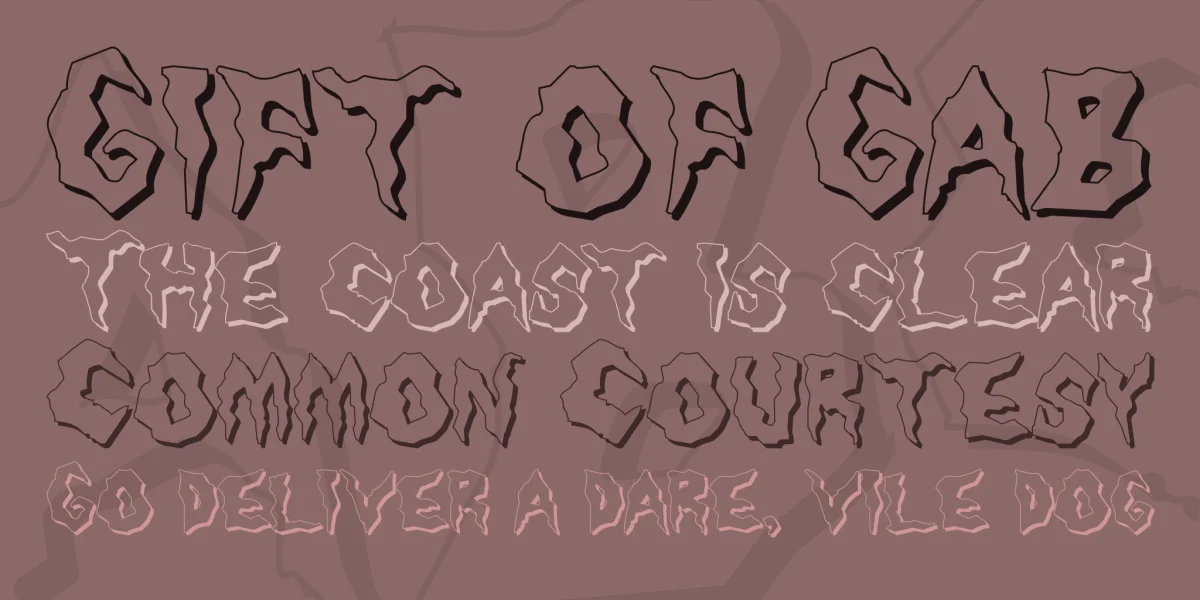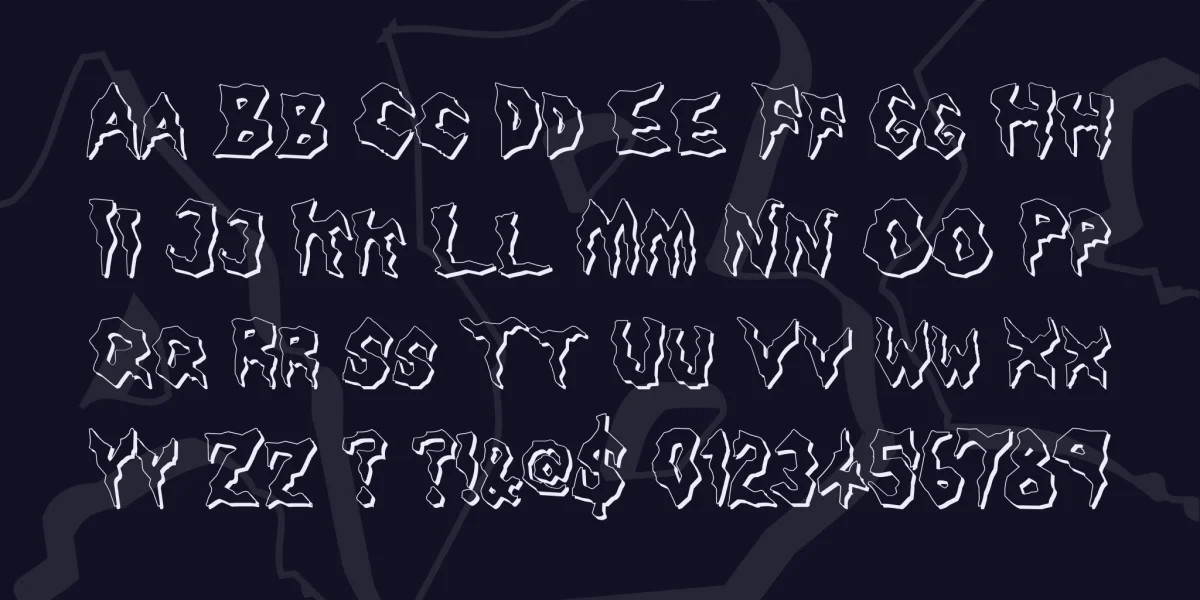
Nameless Harbor (named for a creepy city in the creepy Pokéthulhu Adventure Game, by creepy game designer Me) is a kind of "traditional Halloween font," if there is such a thing. It's more angular than drippy, though - I went for the occasional twisty-pointy bit. It's a batwinged sort of font. Good for creating player handouts for a "Scooby-Doo" style RISUS (The Anything RPG!) Campaign ...